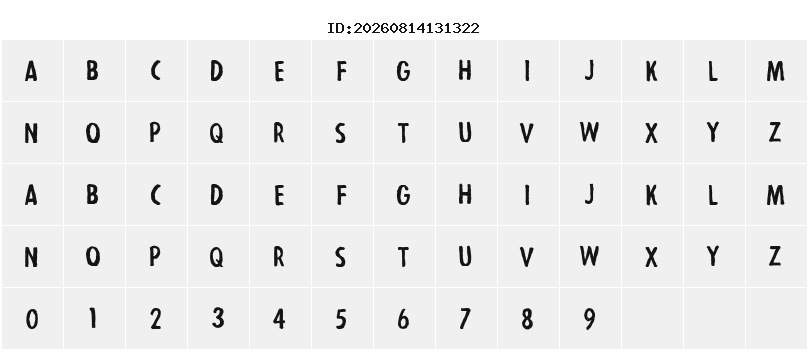
• Font Name: Strejka
• Designer: HENRIavecunK
• Description: Strejka Regular is a font designed by HENRIavecunK in 2016.
Strejka.ttf is a modern, elegant sans-serif font designed for ultimate readability and visual harmony. Perfect for branding, headlines, web design, and print materials.